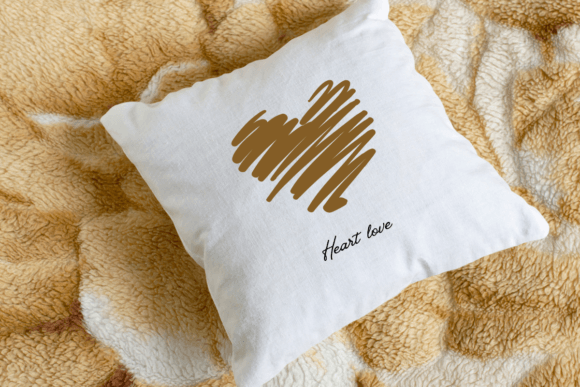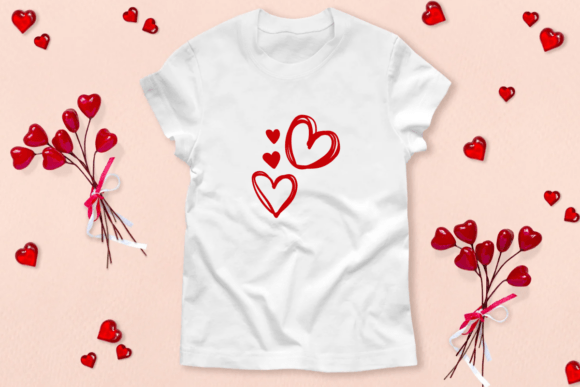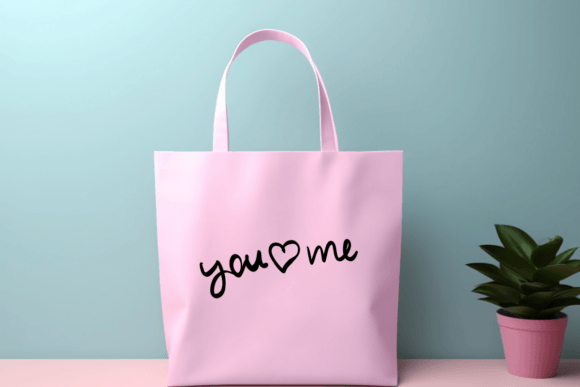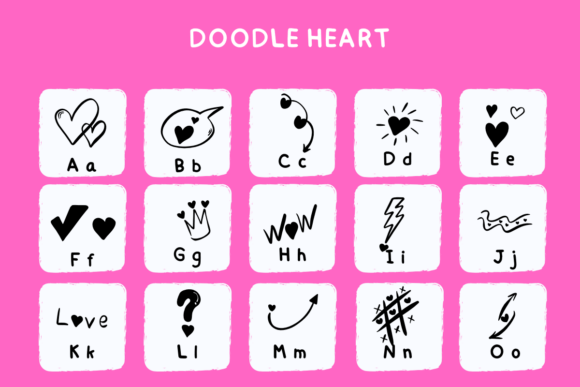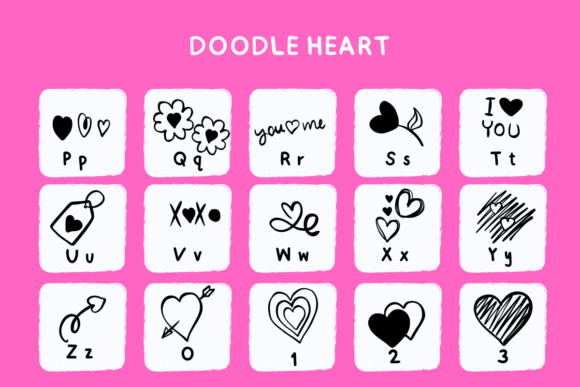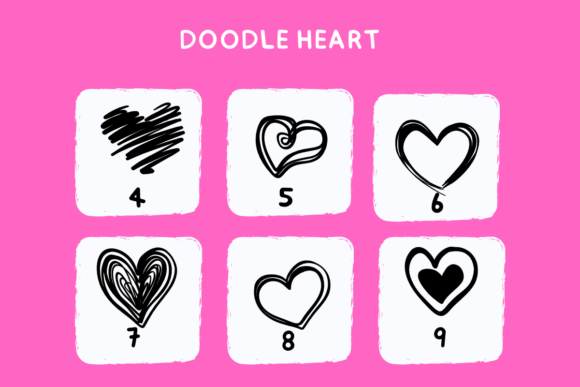
Introduction to Doodle Love Font
Bring an artistic touch to your creative endeavors with Doodle Love, a whimsical dingbats font characterized by its unique sketch style.
With its hand-drawn charm, it elevates your creative projects like DIY projects, crafts, decorations, and logos to new heights Doodle Love is a versatile font choice that adds a whimsical spark to wedding invitations, adding nuances of affection and warmth that set the right tone for any joyous occasion.
Key Features of Doodle Love Font
Why Choose Doodle Love Font?